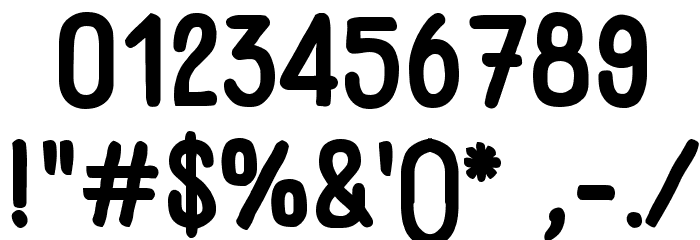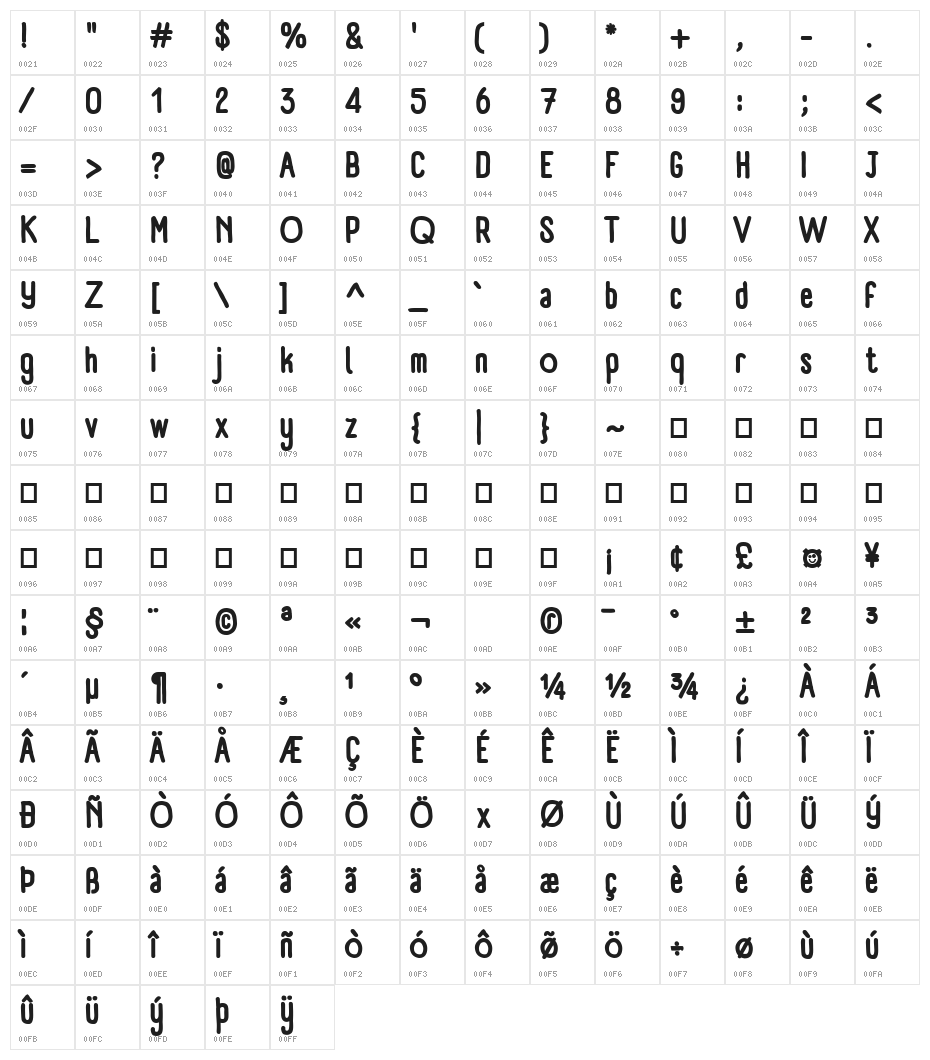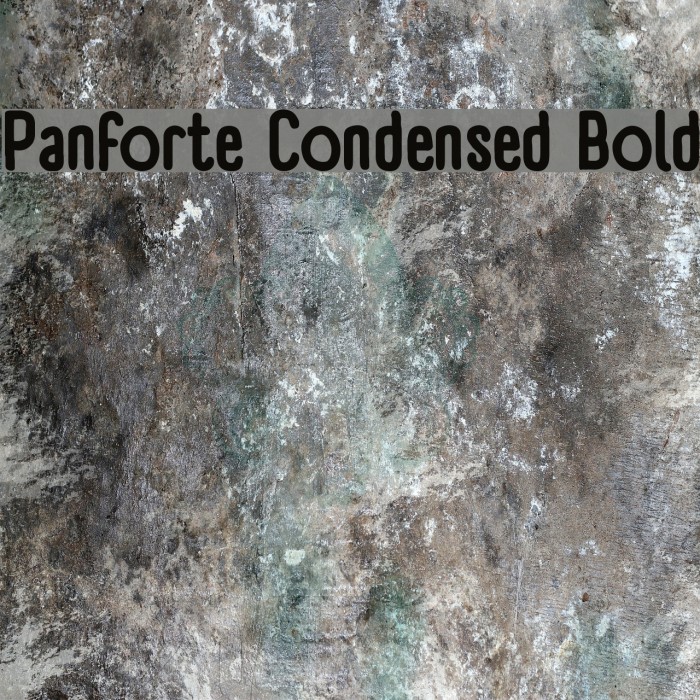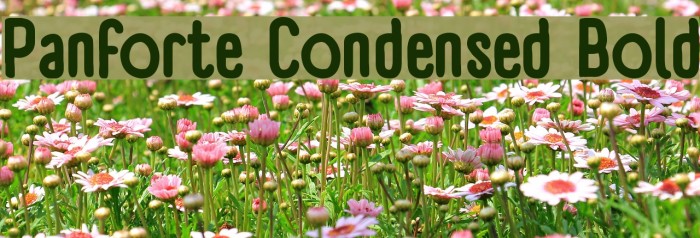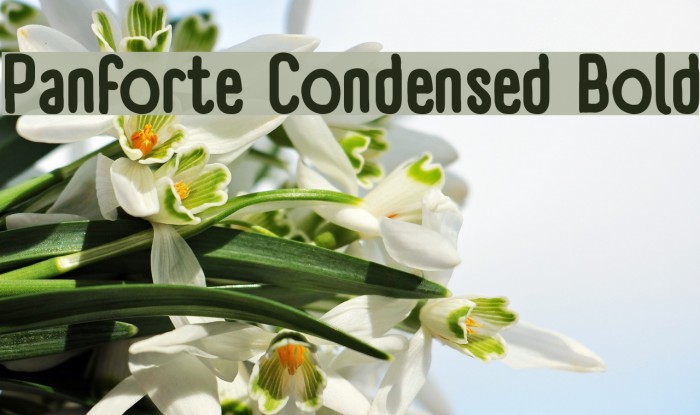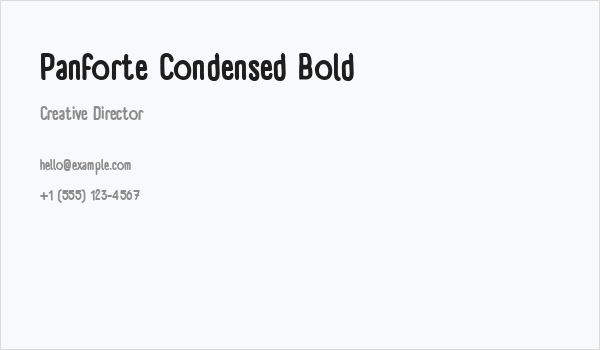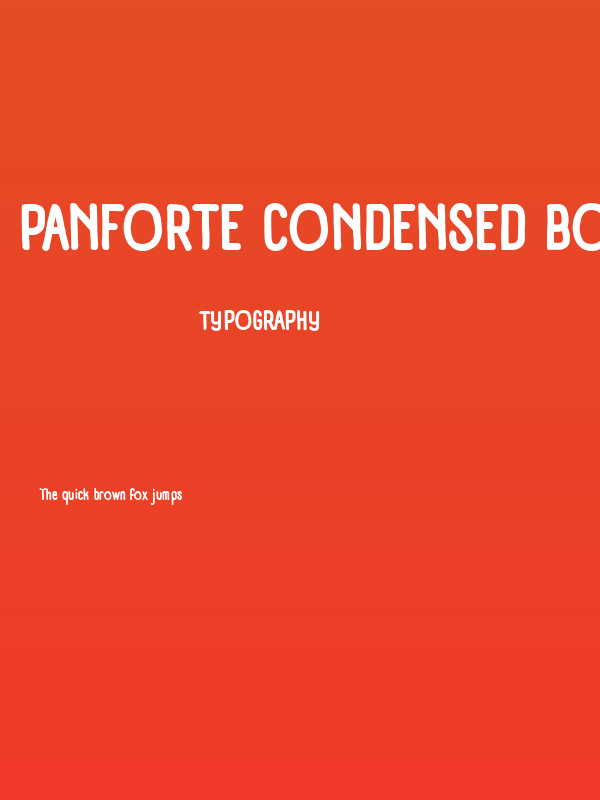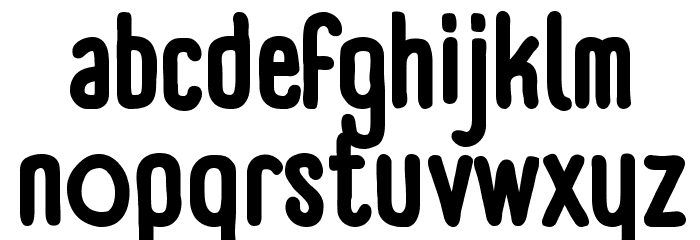
Panforte Condensed Bold Font
Panforte Condensed Bold Description
This font features a bold and condensed style with rounded edges, giving it a friendly and approachable appearance. The characters are tightly spaced, enhancing its compact look. The uppercase letters are tall and uniform, while the lowercase letters maintain a consistent height, contributing to its readability. The numerals are clear and distinct, matching the overall boldness of the alphabet. Special characters are well-integrated, maintaining the font's cohesive design. This font's boldness and condensed form make it suitable for impactful headlines and attention-grabbing text.